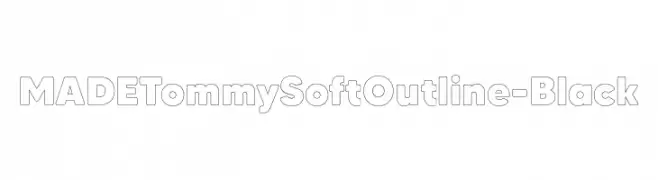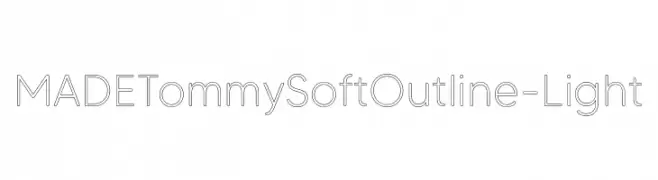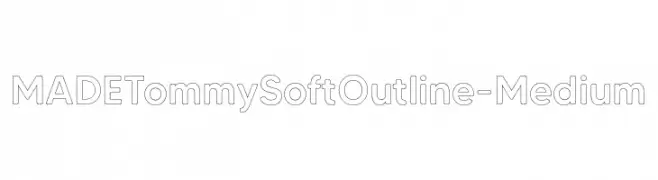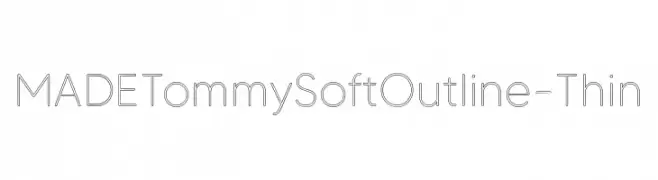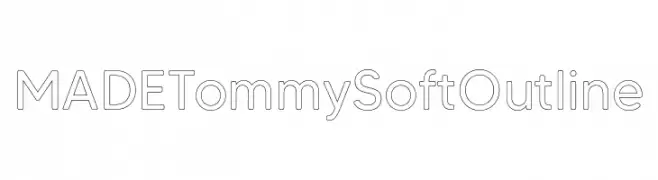
A modern, clean sans-serif outline font with consistent stroke width.
A bold, rounded outline font with a playful and modern style.
A bold, modern outline font with rounded letterforms and consistent width.
A bold, outlined font with a modern and clean design.
A modern, geometric sans-serif outline font with a sleek and minimalistic design.
A modern, soft outline font with rounded characters and balanced spacing.
A modern, thin outline font with geometric precision and a minimalist style.